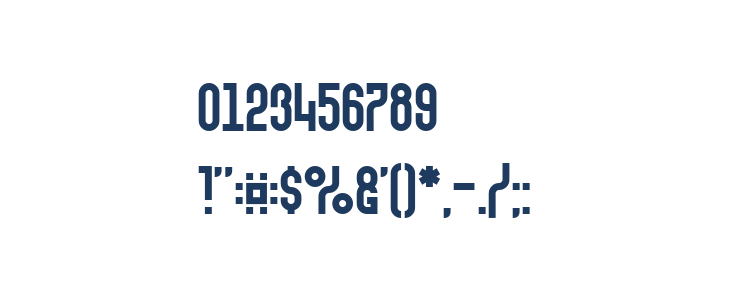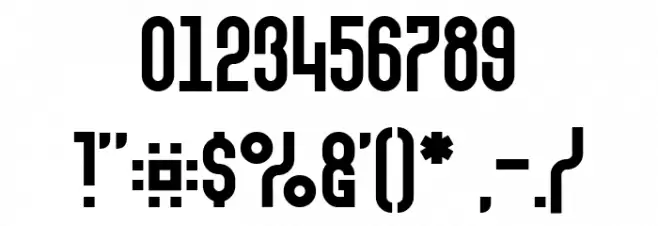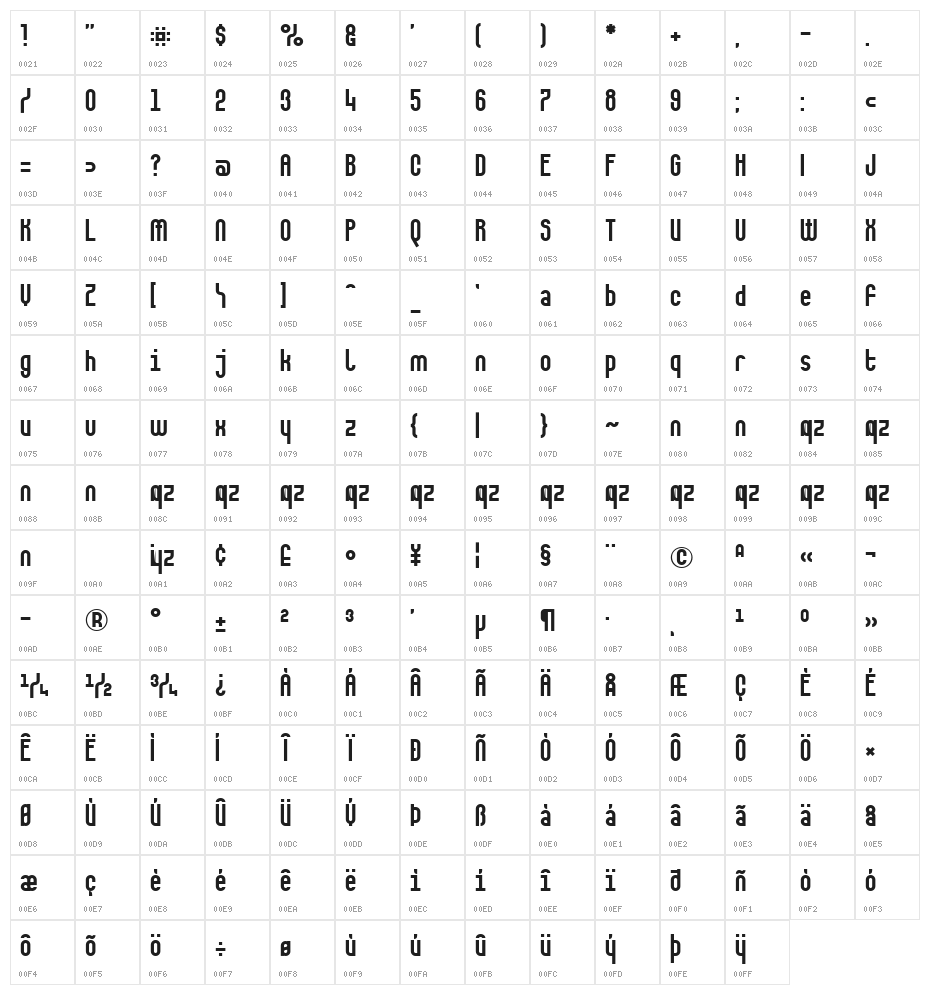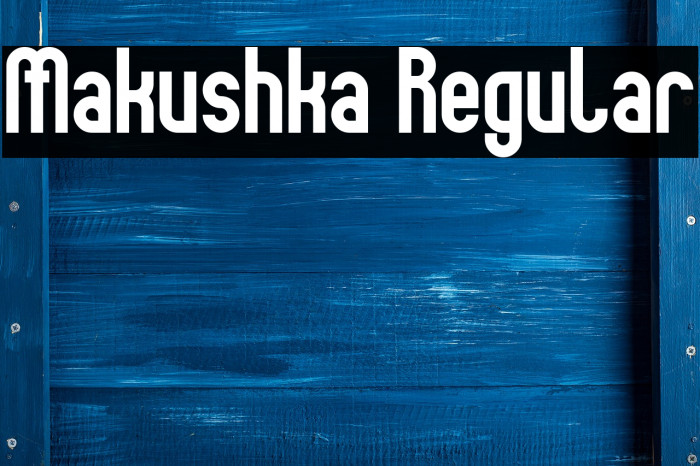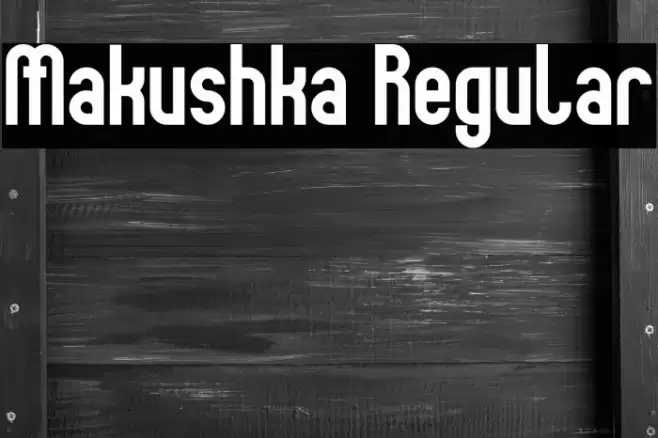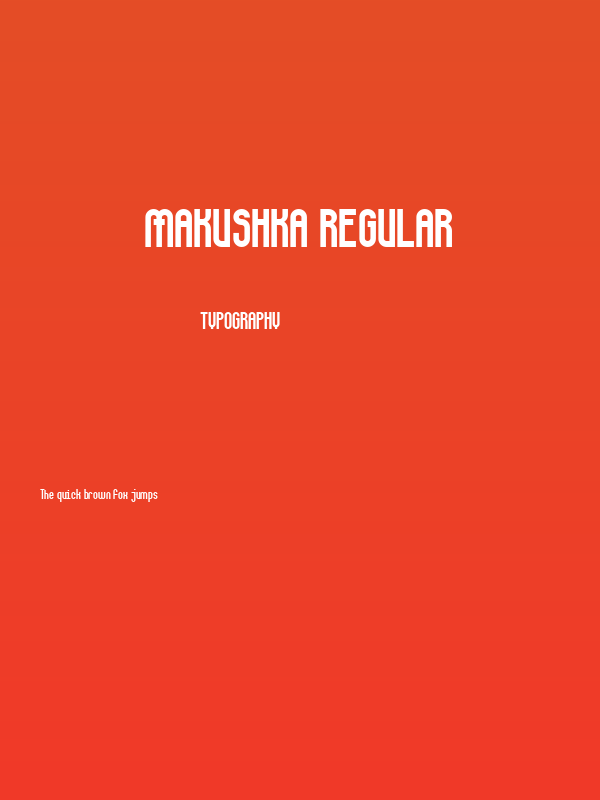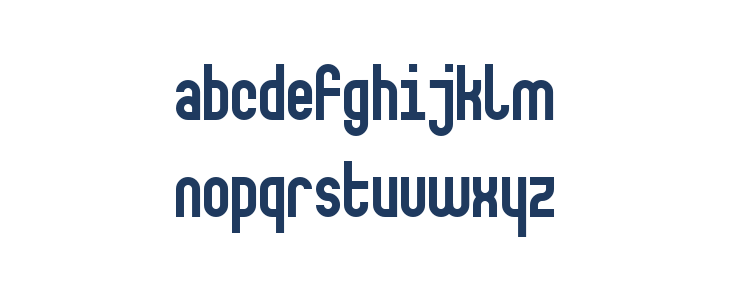
Makushka Regular Font
Makushka Regular Description
This font features a bold and modern design with a unique geometric structure. The uppercase letters have a consistent height and width, creating a uniform appearance. The lowercase letters maintain a similar geometric style, with rounded edges that soften the overall look. Numbers are clear and legible, matching the style of the alphabet. Special characters are distinct and well-integrated into the font's design. The overall appearance is clean and contemporary, making it suitable for various design applications.